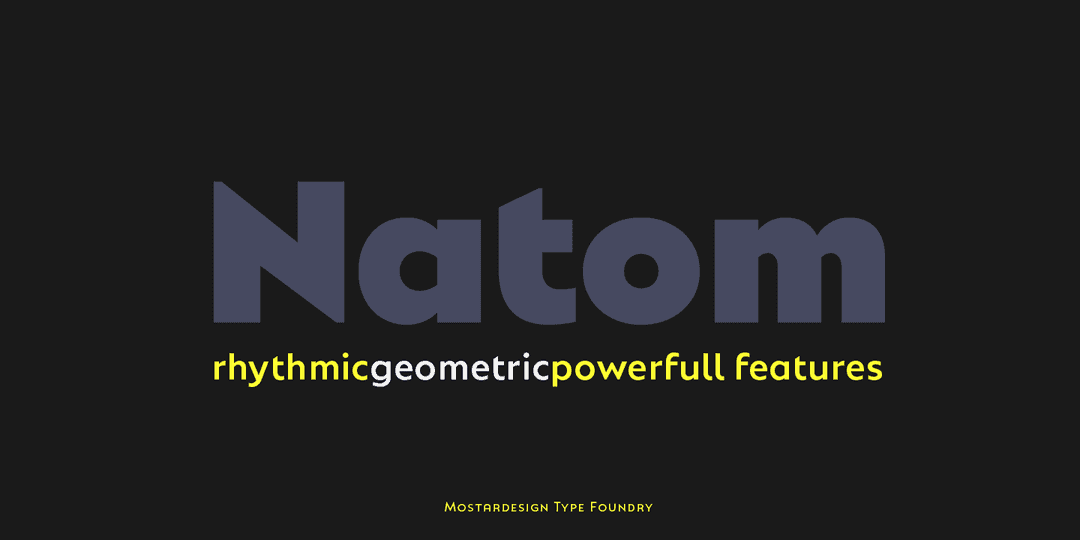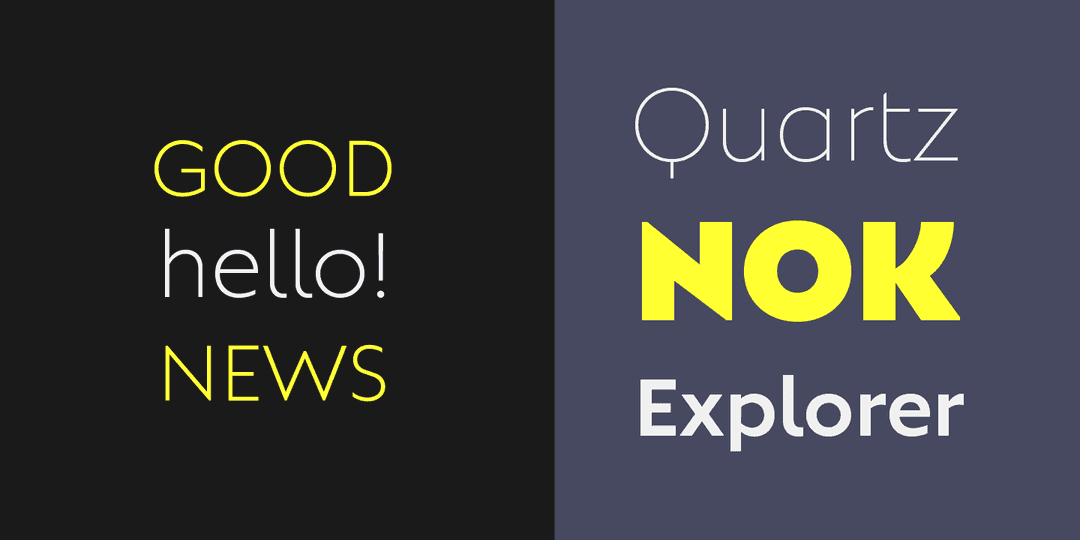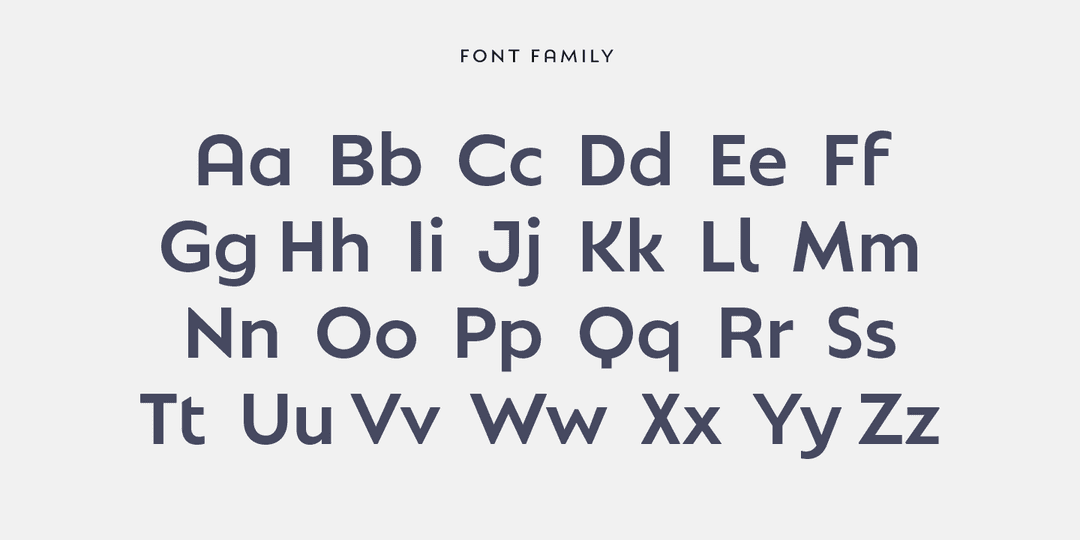
Natom Pro is a contemporary yet geometric typeface family designed specifically for professional web designers, graphic designers, and mobile app developers. Comprising 19 styles designed specifically for headlines.